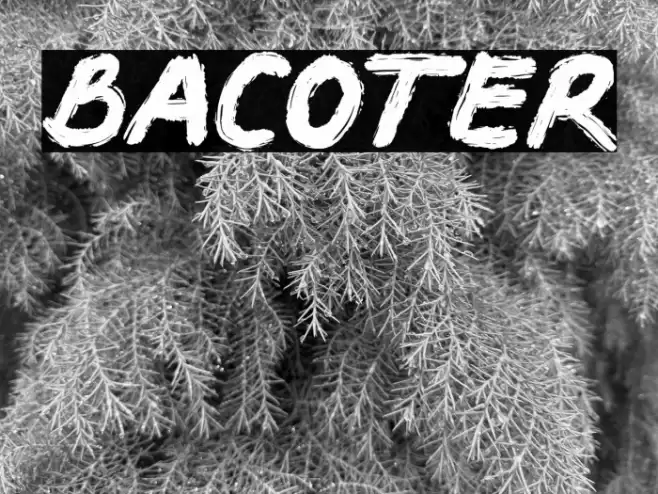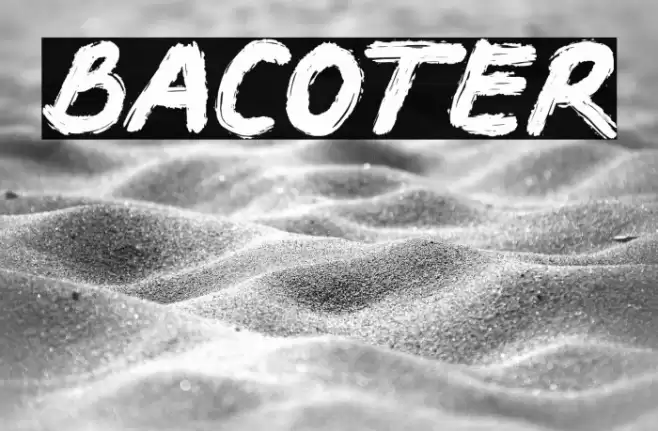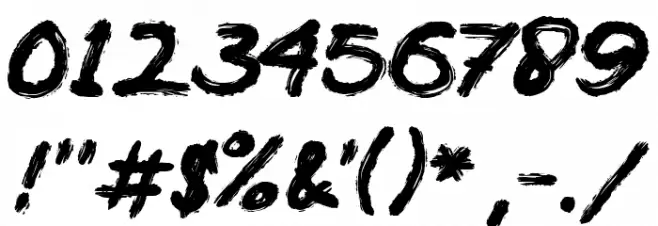
BACOTER Font
BACOTER Description
This font features a bold and dynamic brushstroke style, characterized by its energetic and expressive appearance. The letters are crafted with a rough, textured edge, giving them a hand-painted look that adds a sense of movement and spontaneity. The uppercase and lowercase letters maintain a consistent flow, while the numbers and special characters complement the overall aesthetic. This font's unique style makes it stand out, offering a creative and artistic vibe that is both modern and edgy.
A bold, brushstroke-style font with a dynamic and expressive appearance from Regular fonts.
- Proposed Projects: Ideal for projects that require a creative and artistic touch, such as posters, album covers, branding for artistic ventures, or any design that seeks to convey energy and movement.
- Overall Style: Modern, Artistic